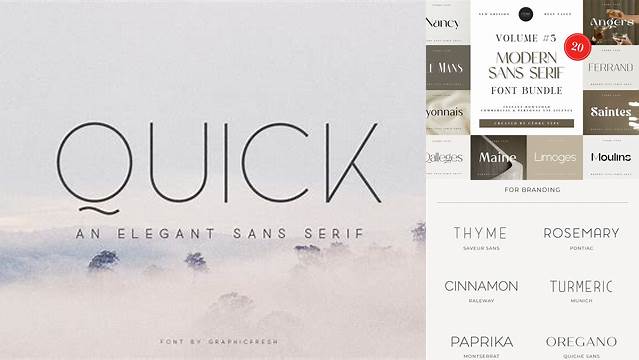
Elegant Sans Serif Fonts: Find Them On DaFont!
Hey guys! Are you on the hunt for elegant sans serif fonts on DaFont to give your designs that extra touch of sophistication? You've come to the right place! Let's dive into the world of these beautiful fonts and explore how they can elevate your projects. We're talking about fonts that are clean, modern, and perfect for everything from logos to body text. Get ready to transform your designs with these incredible finds!
1. What Makes a Sans Serif Font 'Elegant'?
So, what exactly makes a sans serif font feel elegant? It's all about the details, guys. Think about the letterforms – are they sleek and streamlined? Does the font have a good balance between thick and thin strokes? An elegant sans serif font often has a certain refinement in its design, avoiding overly playful or quirky elements. These fonts often feel modern and sophisticated, making them perfect for high-end branding, editorial design, and more. Look for fonts with clean lines and a timeless quality. Trust me; you'll know it when you see it. The elegance also stems from versatility; these fonts can adapt to different contexts while maintaining their sophisticated appeal. They are the chameleons of the font world, always ready to step up your design game.
2. Top Elegant Sans Serif Fonts on DaFont
DaFont is a treasure trove, but finding the perfect elegant sans serif font can take time. No worries, I've got you covered. Some top contenders include fonts with names that hint at sophistication, but don't judge a font by its name alone! Look through the previews and see how the font looks in different sizes and contexts. Many designers upload their fonts to DaFont, meaning you get a wide variety of styles, from ultra-modern to slightly vintage-inspired. Keep an eye out for fonts that have a full character set, including different weights (light, regular, bold) and styles (italic, condensed). This will give you the most flexibility in your designs. Don't be afraid to experiment and mix and match different fonts to create unique combinations. Remember, the best font is the one that perfectly complements your project and brings your vision to life.
3. Using Elegant Sans Serif Fonts for Logos
Your logo is the face of your brand, so choosing the right font is crucial. An elegant sans serif can give your logo a clean, professional, and modern look. When selecting a font for your logo, consider your brand's personality and target audience. A minimalist font might be perfect for a tech company, while a slightly more stylized font could work well for a fashion brand. Make sure the font is legible at different sizes, from business cards to billboards. Also, check how the font looks in both light and dark backgrounds. The goal is to create a logo that is memorable, recognizable, and that accurately represents your brand's values. An elegant sans serif can help you achieve just that. This kind of font provides versatility and timelessness, ensuring your logo remains relevant for years to come.
4. Elegant Sans Serif Fonts for Body Text
While display fonts grab attention, your body text needs to be readable and comfortable to look at. Elegant sans serif fonts can also excel in body text, offering a clean and modern alternative to traditional serif fonts. When choosing a font for body text, prioritize readability. Look for fonts with a good x-height (the height of the lowercase letters) and ample spacing between the letters. Avoid fonts that are too condensed or too decorative, as they can strain the eyes. Test the font at different sizes and line heights to ensure it's easy to read on both screen and print. A well-chosen sans serif font can make your website or document look professional and inviting. So, don't underestimate the power of a good body text font. It's all about creating a pleasant reading experience for your audience.
5. Pairing Elegant Sans Serif Fonts with Other Fonts
Font pairing is an art, but it doesn't have to be intimidating. Pairing elegant sans serif fonts with contrasting fonts can create visually interesting and dynamic designs. A classic pairing is a sans serif with a serif font. The sans serif can be used for headings and subheadings, while the serif font is used for body text. This creates a clear visual hierarchy and improves readability. Another option is to pair two different sans serif fonts, but make sure they have enough contrast to avoid looking too similar. Experiment with different weights, sizes, and styles to find the perfect combination. Online tools and resources can help you find font pairings that work well together. Don't be afraid to break the rules and try something new, but always prioritize readability and visual harmony. The key is to find fonts that complement each other and enhance the overall design.
9. Elegant Sans Serif Fonts for Web Design
In web design, elegant sans serif fonts are your best friend for creating a modern and user-friendly experience. They offer excellent readability on screens and can enhance the overall aesthetic of your website. When choosing a font for your website, consider factors such as screen resolution, font size, and line height. Test the font on different devices and browsers to ensure it looks good across the board. Web fonts can be implemented using CSS, and there are various services like Google Fonts that offer a wide selection of free and easy-to-use web fonts. Make sure to optimize your web fonts for performance, as large font files can slow down your website. A well-chosen sans serif font can make your website look professional and inviting, encouraging visitors to stay longer and explore your content. So, choose wisely and create a website that is both beautiful and functional.
10. Elegant Sans Serif Fonts for Print Design
Elegant sans serif fonts aren't just for the web; they're also fantastic for print design. Whether you're designing brochures, posters, or business cards, a well-chosen sans serif font can add a touch of sophistication and professionalism to your printed materials. When selecting a font for print, consider the size of the text and the printing method. Some fonts may look great on screen but don't translate well to print. Always test your designs before printing to ensure that the text is legible and the colors are accurate. Print design allows for more creative freedom with typography, so don't be afraid to experiment with different fonts and layouts. A beautifully designed print piece can leave a lasting impression on your audience, so make sure to choose a font that reflects your brand's personality and values.
11. The Psychology of Sans Serif Fonts: Why They Feel Modern
Ever wonder why sans serif fonts feel so modern? It's all about psychology, guys! Sans serif fonts lack the small decorative strokes (serifs) found in traditional fonts like Times New Roman. This absence of serifs gives them a clean, minimalist appearance that is often associated with modernity and simplicity. In the early 20th century, sans serif fonts became popular with modernist designers who embraced clean lines and functional design. This association with modernism has stuck with sans serif fonts ever since. When you use a sans serif font, you're subconsciously conveying a sense of innovation, efficiency, and forward-thinking. This makes them a great choice for brands that want to project a modern and progressive image. The psychology of typography is a fascinating field, and understanding how fonts affect people's perceptions can help you make more informed design decisions.
12. Finding Unique and Unusual Elegant Sans Serif Fonts
Looking for something a little different? Finding unique and unusual elegant sans serif fonts can set your designs apart from the crowd. While DaFont has a great selection of classic sans serif fonts, it also offers some more experimental and unconventional options. Look for fonts with unique letterforms, unusual proportions, or unexpected details. Browse through different categories and tags to discover hidden gems. Don't be afraid to try out fonts that you wouldn't normally consider. Sometimes the most unexpected choices can lead to the most stunning results. Remember, the goal is to find a font that reflects your brand's personality and makes your designs stand out. So, get creative and explore the vast world of typography. You never know what treasures you might find.
13. Elegant Sans Serif Fonts for Headlines and Titles
Headlines and titles are your chance to grab attention, and elegant sans serif fonts can help you do just that. A well-chosen sans serif font can make your headlines look modern, sophisticated, and eye-catching. When selecting a font for headlines, consider factors such as size, weight, and spacing. A bold, condensed font can be great for short headlines, while a lighter, wider font may be better for longer headlines. Experiment with different font sizes and letter spacing to create a visually appealing effect. Make sure the font is legible and easy to read, even at a distance. A great headline font can draw readers in and encourage them to explore your content. So, choose a font that is both beautiful and functional.
14. Elegant Sans Serif Fonts with a Vintage Twist
Who says elegant sans serif fonts can't have a vintage vibe? Some sans serif fonts incorporate subtle vintage elements, such as rounded corners, slightly distressed textures, or retro-inspired letterforms. These fonts can add a touch of character and nostalgia to your designs, while still maintaining a clean and modern look. Look for fonts that evoke the style of mid-century modern design or the Art Deco era. These fonts can be perfect for projects that need a touch of vintage charm without sacrificing modernity. Pairing a vintage-inspired sans serif font with a modern color palette and layout can create a visually striking and unique design. So, don't be afraid to mix and match different styles to create something truly special.
15. The Importance of Kerning and Tracking with Elegant Sans Serif Fonts
Kerning and tracking are crucial for making your elegant sans serif fonts look their best. Kerning refers to the spacing between individual letters, while tracking refers to the overall spacing between all the letters in a word or phrase. Adjusting the kerning and tracking can improve the readability and visual appeal of your text. Some fonts may have poor kerning built in, which can make certain letter combinations look awkward or uneven. In these cases, manual kerning is necessary to fine-tune the spacing and create a more balanced appearance. Tracking can be used to adjust the overall density of your text, making it more or less compact. Experiment with different kerning and tracking settings to find what looks best for your chosen font and layout. Paying attention to these details can make a big difference in the overall quality of your design.
16. Monospaced Elegant Sans Serif Fonts: A Unique Option
Monospaced fonts, where each character takes up the same amount of horizontal space, can bring a unique, technical feel to your designs. While not as common as proportionally spaced fonts, monospaced sans serifs can be surprisingly elegant. They're often associated with coding and terminals, lending a sense of precision and modernity. Using a monospaced sans serif in the right context can make your design stand out. Consider using them for displaying code snippets, creating a retro-futuristic aesthetic, or adding a touch of quirkiness to your project. The key is to use them sparingly and intentionally, as their uniform spacing can sometimes hinder readability in large blocks of text. With careful application, monospaced elegant sans serif fonts can be a powerful tool in your design arsenal.
17. Elegant Sans Serif Fonts for Mobile Apps
When designing mobile apps, choosing the right font is crucial for user experience. Elegant sans serif fonts are an excellent choice for mobile apps because they offer excellent readability on small screens. Look for fonts that are specifically designed for mobile devices, with optimized letterforms and spacing. Consider the overall design of your app and choose a font that complements the aesthetic. Make sure the font is legible at different sizes and on different screen resolutions. Test your app on various devices to ensure that the text looks good across the board. A well-chosen sans serif font can make your app look professional and user-friendly, encouraging users to engage with your content. So, prioritize readability and choose a font that enhances the overall user experience.
18. How Font Weight Affects the Elegance of Sans Serif Fonts
The weight of a font—whether it's light, regular, bold, or black—significantly impacts its perceived elegance. A lighter weight can evoke a sense of delicacy and sophistication, perfect for luxury brands or minimalist designs. Conversely, a bolder weight can convey strength and confidence, suitable for headlines or calls to action. Experimenting with different weights within the same font family allows you to create visual hierarchy and add depth to your designs. Consider the overall context of your project and choose a weight that complements the message you're trying to convey. A subtle change in weight can dramatically alter the feel of a font, so pay attention to these nuances when making your selection. Ultimately, the right font weight can enhance the elegance and impact of your sans serif font.
19. Elegant Sans Serif Fonts with Rounded Terminals
Rounded terminals, the rounded ends of strokes in a font, can soften the otherwise sharp edges of a sans serif, giving it a friendlier and more approachable feel. These fonts often appear more modern and playful than their counterparts with squared-off terminals. Elegant sans serif fonts with rounded terminals are great for designs that aim to be inviting and accessible. They work well in branding for companies that want to project a warm and welcoming image. Consider using them in websites, apps, or marketing materials targeted at a younger audience. The subtle roundness adds a touch of personality without sacrificing the clean and minimalist aesthetic of a sans serif. Overall, rounded terminals can make a sans serif font feel more human and less sterile.
20. The Role of Contrast in Elegant Sans Serif Typography
Contrast is key in creating visually appealing typography with elegant sans serif fonts. By varying the size, weight, and style of your fonts, you can create a dynamic and engaging layout that captures the reader's attention. Using a bold font for headlines and a lighter font for body text is a classic way to establish hierarchy and improve readability. Experiment with different font pairings to find combinations that complement each other and create a cohesive visual identity. Consider the use of color to further enhance contrast and draw attention to key elements. A well-executed contrast not only improves the aesthetic appeal of your design but also helps to guide the reader's eye and communicate your message effectively. Remember, contrast is not just about making things look pretty; it's about improving clarity and communication.
21. Elegant Sans Serif Fonts for E-commerce Websites
For e-commerce websites, elegant sans serif fonts can provide a modern, trustworthy aesthetic, encouraging customers to make purchases. Clean, readable typography is essential for product descriptions, calls to action, and navigation menus. Choose fonts that are easy on the eyes, even when viewed on small screens. Consider using a slightly bolder weight for headlines and a lighter weight for body text to create a clear visual hierarchy. Ensure that your fonts are optimized for web performance to avoid slowing down your website. A well-designed e-commerce website with elegant typography can enhance the user experience and increase conversions. By creating a visually appealing and user-friendly online store, you can build trust with your customers and encourage them to return for future purchases.
22. Elegant Sans Serif Fonts Inspired by Geometric Shapes
Some elegant sans serif fonts draw inspiration from geometric shapes, resulting in a clean, minimalist aesthetic with a touch of mathematical precision. These fonts often feature perfectly circular Os, straight lines, and sharp angles, giving them a structured and modern feel. Geometric sans serifs are great for brands that want to project a sense of innovation, efficiency, and technical expertise. Consider using them in logos, websites, or marketing materials for companies in the tech, engineering, or architecture industries. The precise geometry of these fonts can create a strong visual impact and convey a sense of confidence and sophistication. However, it's important to use them sparingly, as their stark simplicity can sometimes feel cold or impersonal. When used effectively, geometric sans serif fonts can add a unique and memorable touch to your designs.
23. Using Color with Elegant Sans Serif Fonts
Color plays a vital role in how elegant sans serif fonts are perceived. A bold, vibrant color can make a font stand out and grab attention, while a more subtle, muted color can create a sense of sophistication and elegance. Consider the overall color palette of your design and choose font colors that complement the other elements. Use color to create contrast and hierarchy, drawing attention to key headlines or calls to action. Be mindful of accessibility and ensure that your font colors provide sufficient contrast against the background for readability. Experiment with different color combinations to find what works best for your chosen font and design. Remember, color is a powerful tool that can enhance the impact of your typography and help you communicate your message effectively.
24. Elegant Sans Serif Fonts with High X-Height
High x-height fonts, where the lowercase letters are relatively tall compared to the uppercase letters, tend to be more readable, especially in body text. This characteristic is beneficial when choosing elegant sans serif fonts, as it can enhance the overall user experience. A high x-height makes the text appear larger and clearer, even at smaller sizes. This is particularly important for websites and mobile apps, where users may be viewing content on small screens. When selecting a sans serif font for body text, prioritize readability and look for fonts with a high x-height. The increased legibility will make your content more accessible and enjoyable to read. Overall, a high x-height can significantly improve the functionality and aesthetic appeal of your typography.
25. Elegant Sans Serif Fonts for Fashion Branding
In the world of fashion branding, where image is everything, elegant sans serif fonts can be a powerful tool for conveying sophistication, modernity, and style. Choose fonts that reflect the brand's personality and target audience. A minimalist sans serif might be perfect for a high-end luxury brand, while a slightly more stylized font could work well for a contemporary streetwear label. Consider using different font weights and styles to create visual hierarchy and add depth to your designs. Ensure that your fonts are legible and easy to read, even on small screens. A well-chosen sans serif font can elevate the overall aesthetic of your brand and communicate a clear message to your target audience. By creating a cohesive and visually appealing brand identity, you can build trust and loyalty with your customers.
26. The Influence of Swiss Style on Elegant Sans Serif Fonts
Swiss Style, also known as International Typographic Style, has had a profound influence on the design of elegant sans serif fonts. This design movement, which emerged in Switzerland in the mid-20th century, emphasized clean lines, simplicity, and functionality. Swiss Style designers favored sans serif fonts for their clarity and legibility. They believed that typography should be objective and neutral, serving to communicate information in the most efficient way possible. Many of the classic sans serif fonts we use today, such as Helvetica and Arial, were inspired by the principles of Swiss Style. These fonts are characterized by their clean lines, geometric forms, and lack of ornamentation. The legacy of Swiss Style continues to shape the design of elegant sans serif fonts, ensuring that they remain timeless and functional.
27. Elegant Sans Serif Fonts with Ligatures
Ligatures, those fancy connections between letters, can add a touch of elegance and sophistication to sans serif fonts. They replace two or more characters with a single, more visually appealing glyph. While not all sans serifs include ligatures, those that do often feel more polished and refined. Ligatures can improve readability by eliminating awkward spacing between letters, and they can also add a unique flair to your designs. Common ligatures include "fi", "fl", "ff", and "ffi". When using ligatures, be sure to enable them in your design software. Experiment with different ligatures to see how they enhance the look of your text. Keep in mind that ligatures are most effective when used sparingly, as overusing them can make your text look cluttered. With careful application, ligatures can elevate the elegance and sophistication of your sans serif typography.
28. Creating a Visual Hierarchy with Elegant Sans Serif Fonts
Establishing a clear visual hierarchy is crucial for guiding the reader's eye and communicating your message effectively. Elegant sans serif fonts can be a powerful tool for creating a strong visual hierarchy in your designs. Use different font weights, sizes, and styles to differentiate between headlines, subheadings, and body text. Consider using color to further emphasize key elements and draw attention to important information. Experiment with different font pairings to create contrast and visual interest. Ensure that your visual hierarchy is consistent throughout your design, making it easy for the reader to navigate and understand your content. A well-defined visual hierarchy not only improves the aesthetic appeal of your design but also enhances its functionality and usability. By guiding the reader's eye and highlighting key information, you can ensure that your message is communicated clearly and effectively.
29. The Future of Elegant Sans Serif Typography
The world of elegant sans serif typography is constantly evolving, with new fonts and design trends emerging all the time. As technology advances, we can expect to see even more innovative and creative uses of typography. Variable fonts, which allow for dynamic adjustments to font weight, width, and other parameters, are likely to become more prevalent. We may also see a greater emphasis on accessibility and inclusivity in font design, with fonts that are optimized for users with visual impairments or other disabilities. The future of elegant sans serif typography is bright, with endless possibilities for creativity and innovation. As designers, it's important to stay informed about the latest trends and technologies so we can continue to create beautiful and effective typography that enhances the user experience.
30. Finding Inspiration for Using Elegant Sans Serif Fonts
Need a spark of creativity? Finding inspiration for using elegant sans serif fonts is easier than you think! Check out design blogs, online portfolios, and social media platforms like Behance and Dribbble. Look at how other designers are using sans serif fonts in their projects and take note of what you like. Pay attention to font pairings, color palettes, and overall design aesthetics. Don't be afraid to experiment and try out new ideas. Visit museums and art galleries to see how typography has been used throughout history. Surround yourself with inspiration and let your creativity flow. Remember, inspiration can come from anywhere, so keep your eyes open and be receptive to new ideas. The more inspiration you gather, the more creative and innovative your designs will become.